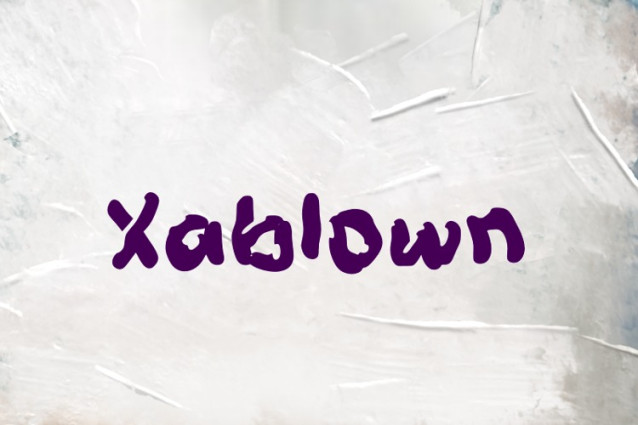
Xablown Font
Xablown Font, it would be a perfect choice to design posters, affiches, logos, t-shirt and magazine prints, eye-pleasing typographic designs and more.